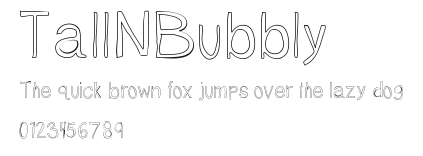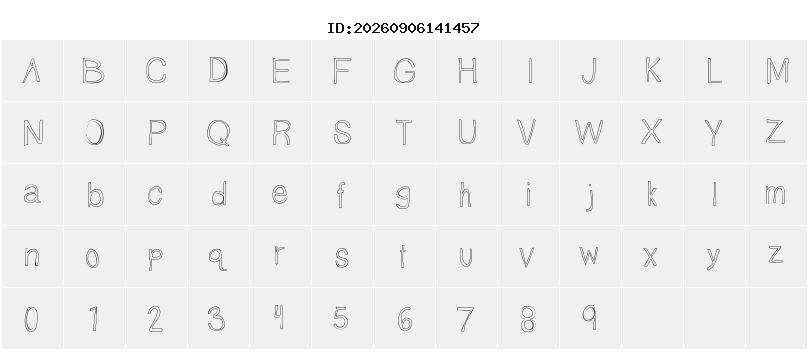
TallNBubbly Preview
• Font Name: TallNBubbly
• Full Font Name: TallNBubbly
• PostScript Name: TallNBubbly
About TallNBubbly.ttf
TallNBubbly.ttf is a modern, elegant sans-serif font designed for ultimate readability and visual harmony. Perfect for branding, headlines, web design, and print materials.